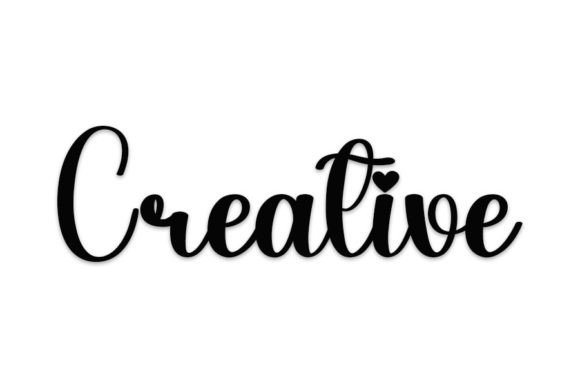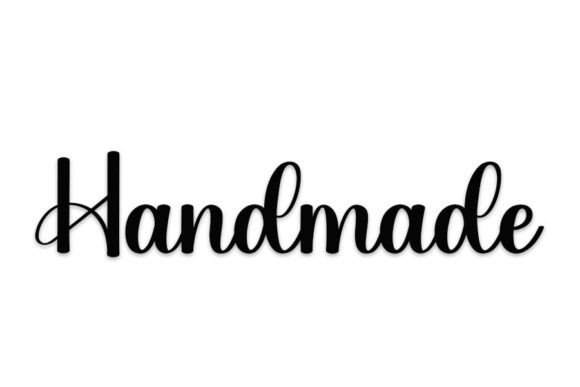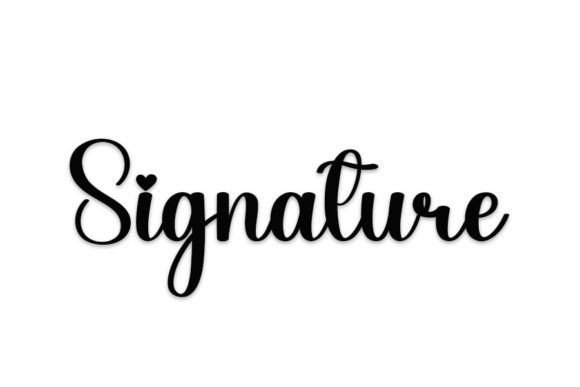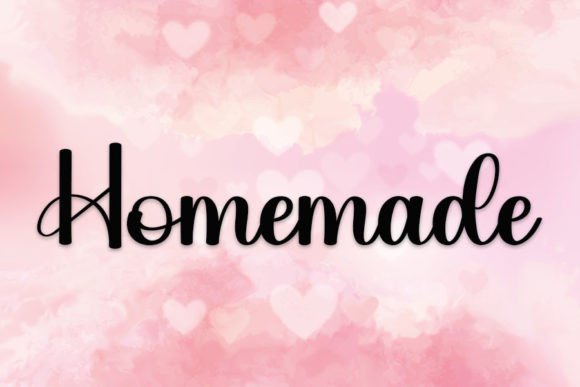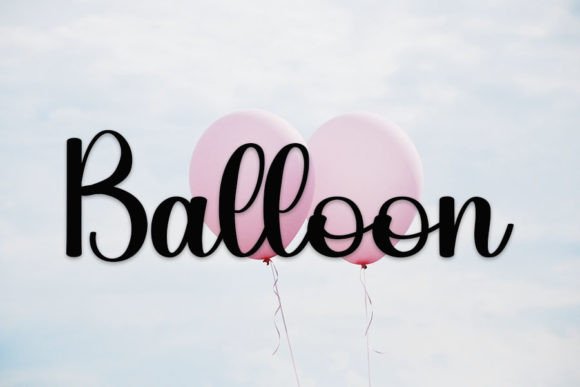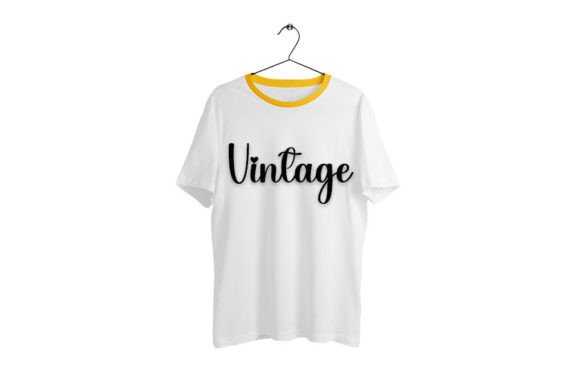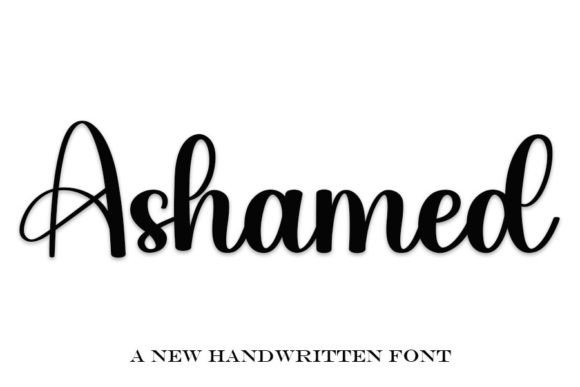
Ashamed Font: Elevate Your Designs with Elegance and Timeless Style
Are you on the hunt for a font that exudes elegance, sophistication, and a touch of timeless charm? Look no further than the Ashamed Font, a beautiful handwritten font that is sure to capture your heart. With its incredibly distinct and stylish appeal, this font is perfect for designers and crafters looking to add a unique flair to their projects.
The Beauty of Ashamed Font
Ashamed Font is a neat and beautiful handwritten font that boasts an elegant touch, making it ideal for a wide range of design applications. Whether you’re working on a logo, branding materials, social media graphics, or even a website, this font is sure to make your designs stand out from the crowd. Its classic and timeless style ensures that your creations will remain relevant and stylish for years to come.
What Makes Ashamed Font So Special?
So, what sets Ashamed Font apart from other fonts out there? Here are just a few reasons why designers and crafters are falling in love with this incredible font:
- Elegant and Refined: Ashamed Font features a sleek and sophisticated design that adds a touch of elegance to any project.
- Timeless Style: Unlike trendy fonts that quickly go out of style, Ashamed Font boasts a classic appeal that ensures your designs will remain stylish for years to come.
- Versatile: This font is perfect for a wide range of design applications, from logos and branding materials to social media graphics and websites.
- Easy to Read: Ashamed Font is incredibly legible, making it perfect for body text, headings, and titles.
How to Use Ashamed Font in Your Designs
Ready to fall in love with Ashamed Font? Here are some tips on how to incorporate this beautiful font into your designs:
- Pair it with Other Fonts: Ashamed Font pairs perfectly with other fonts, making it easy to create stunning typography combinations.
- Use it for Headings and Titles: The elegant and refined design of Ashamed Font makes it perfect for headings, titles, and other display text.
- Add it to Your Brand Identity: Use Ashamed Font to create a consistent brand identity that exudes elegance and sophistication.
Who Can Benefit from Ashamed Font?
Ashamed Font is perfect for a wide range of designers and crafters, including:
- Graphic Designers: Add a touch of elegance to your designs with Ashamed Font.
- Branding Experts: Create a consistent brand identity with this timeless and sophisticated font.
- Web Designers: Use Ashamed Font to create stunning website designs that exude elegance and refinement.
- Crafters: Add a personal touch to your crafts with Ashamed Font, perfect for handmade cards, gift tags, and more.
In conclusion, Ashamed Font is a beautiful and elegant handwritten font that is sure to capture your heart. With its timeless style, versatility, and ease of use, this font is perfect for designers and crafters looking to elevate their designs. Whether you’re working on a logo, branding materials, or a website, Ashamed Font is the perfect choice. So why wait? Fall in love with Ashamed Font today and create spectacular designs that exude elegance and sophistication!